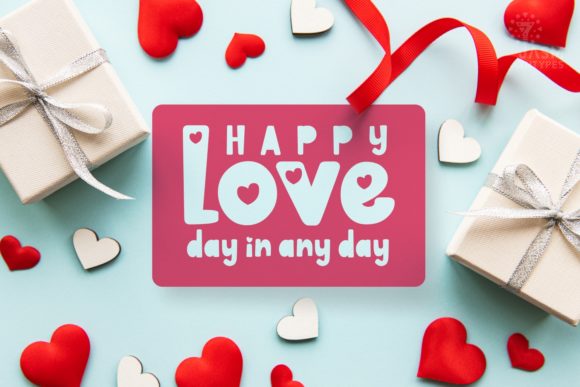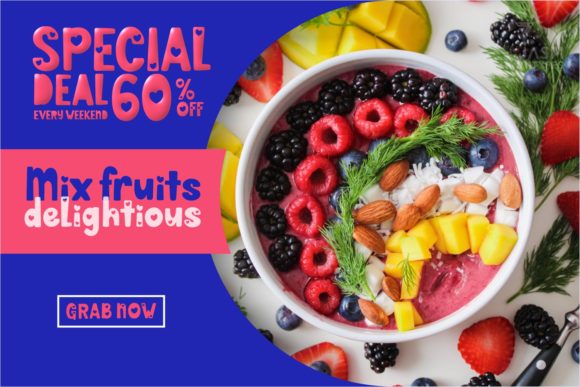
Introducing Do It with Love Font: The Ultimate Romantic Display Font
Are you looking for a font that exudes romance, playfulness, and elegance? Look no further than the Do It with Love Font! This versatile display font is perfect for a wide range of applications, from Valentine’s Day cards to wedding crafts, and is guaranteed to add a romantic touch to your next design.
A Font that Speaks to the Heart
Do It with Love Font is a beautiful, hand-crafted font that is designed to capture the essence of love and romance. Its playful and elegant design makes it perfect for designers and crafters who want to create stunning visual content that speaks to the heart. Whether you’re creating a Valentine’s Day card, a wedding invitation, or a romantic gift tag, this font is sure to impress.
One of the best things about Do It with Love Font is that it’s PUA (Private Use Area) encoded, which means you can access all of the gorgeous glyphs and swashes with ease! This font features a wealth of special characters, including alternate glyphs and ligatures, that will take your designs to the next level. With PUA encoding, you can easily access these characters using a character map or font editing software.
Special Features to Enhance Your Designs
Do It with Love Font is more than just a beautiful font – it’s also packed with special features that will enhance your designs. Some of the features you can expect include:
- Alternate glyphs: Add some extra flair to your designs with alternate glyphs that offer a range of variations.
- Ligatures: Create beautiful connections between letters with ligatures that add a touch of elegance to your designs.
- Swashes: Add a touch of drama and flair to your designs with swashes that can be used to create stunning titles and headings.
Do It with Love Font is perfect for designers and crafters who want to create stunning visual content that speaks to the heart. Whether you’re creating digital content, such as social media graphics and blog posts, or physical products, such as cards and invitations, this font is sure to impress. Its versatility and range of applications make it a must-have font for anyone who wants to add a romantic touch to their designs.
Applications for Do It with Love Font
So, what can you use Do It with Love Font for? The possibilities are endless! Here are some ideas to get you started:
- Valentine’s Day cards and gifts
- Wedding invitations and decorations
- Romantic gift tags and packaging
- Stationery and journaling
In conclusion, Do It with Love Font is a beautiful, versatile display font that is perfect for designers and crafters who want to add a romantic touch to their designs. With its PUA encoding, special features, and range of applications, this font is a must-have for anyone who wants to create stunning visual content that speaks to the heart. So why wait? Download Do It with Love Font today and start creating your own romantic designs!